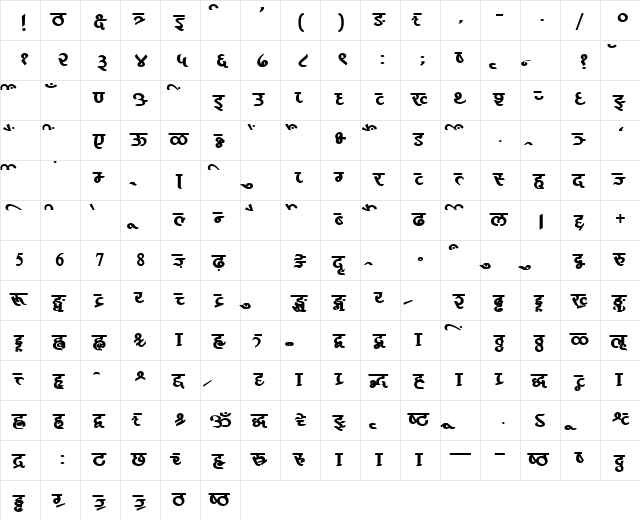
AkrutiDevPooja Bold
Design Context for AkrutiDevPooja Typeface
AkrutiDevPooja takes a measured approach to typography — its balanced proportions and neutral character make it a reliable workhorse for both digital and print work. The heavy weight commands attention and anchors typographic hierarchies.
Pro Tip: Use AkrutiDevPooja in both headline and body roles to test its range before committing to a single application.